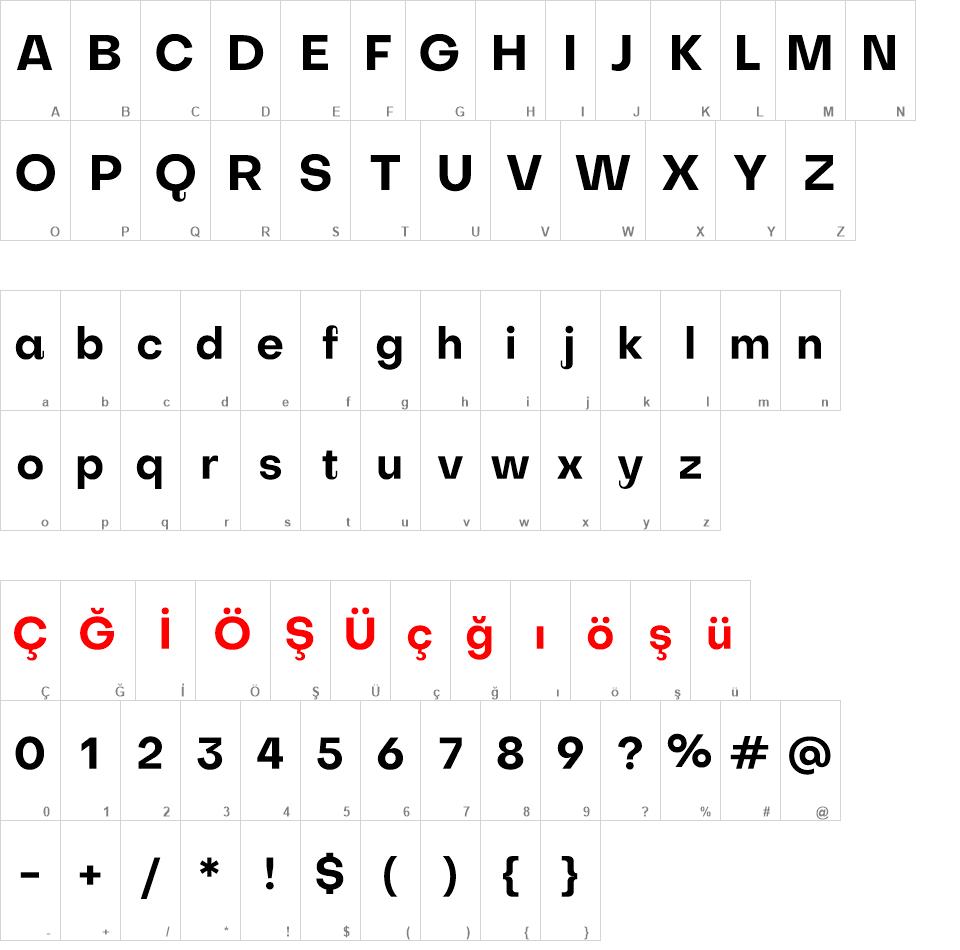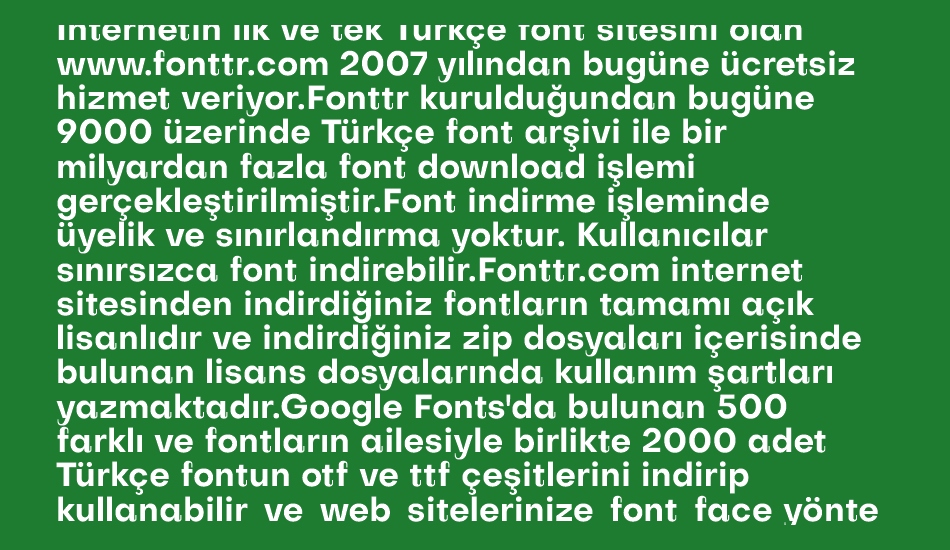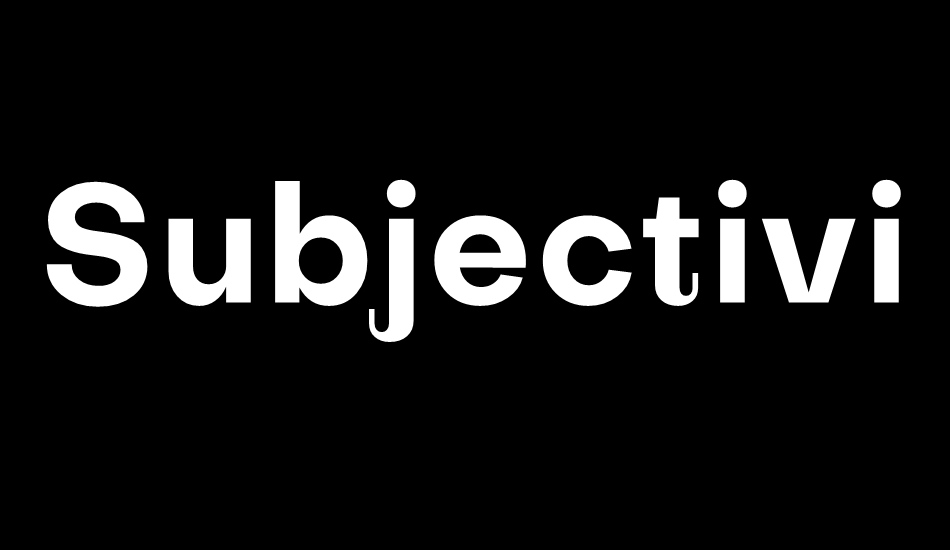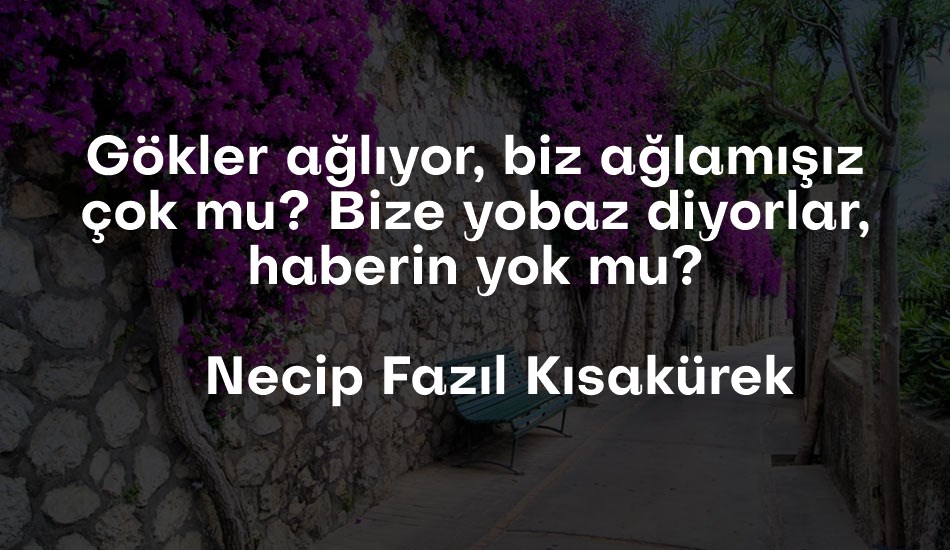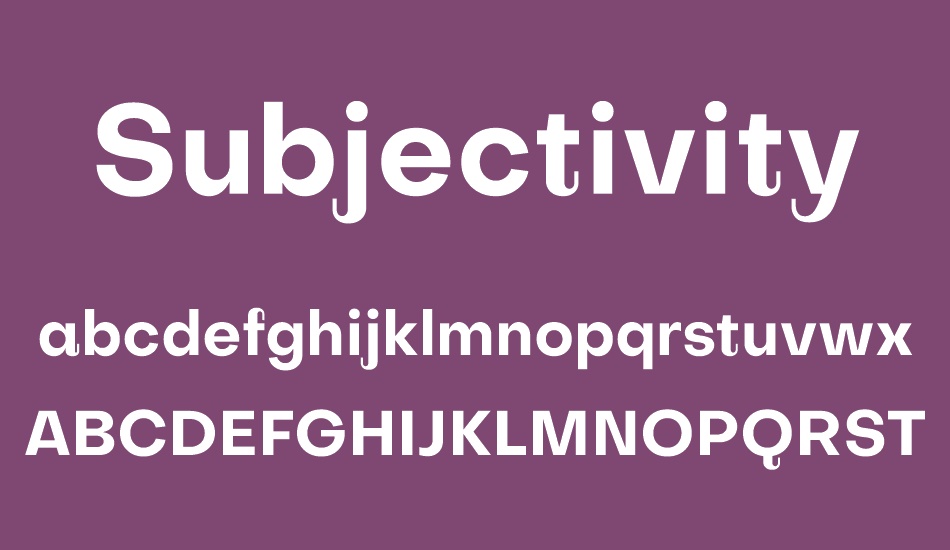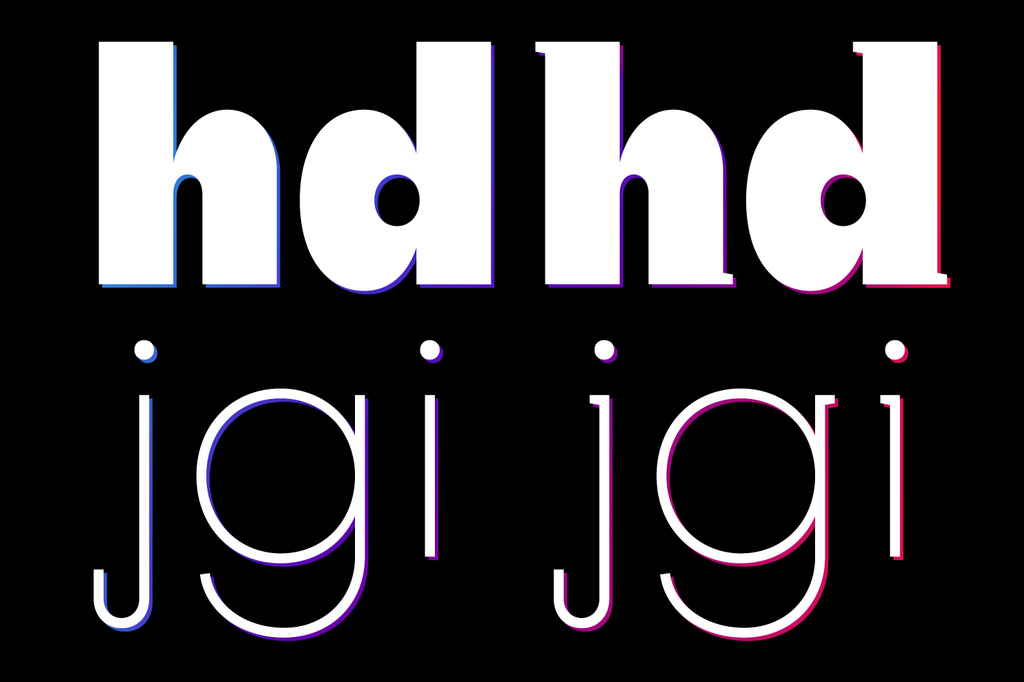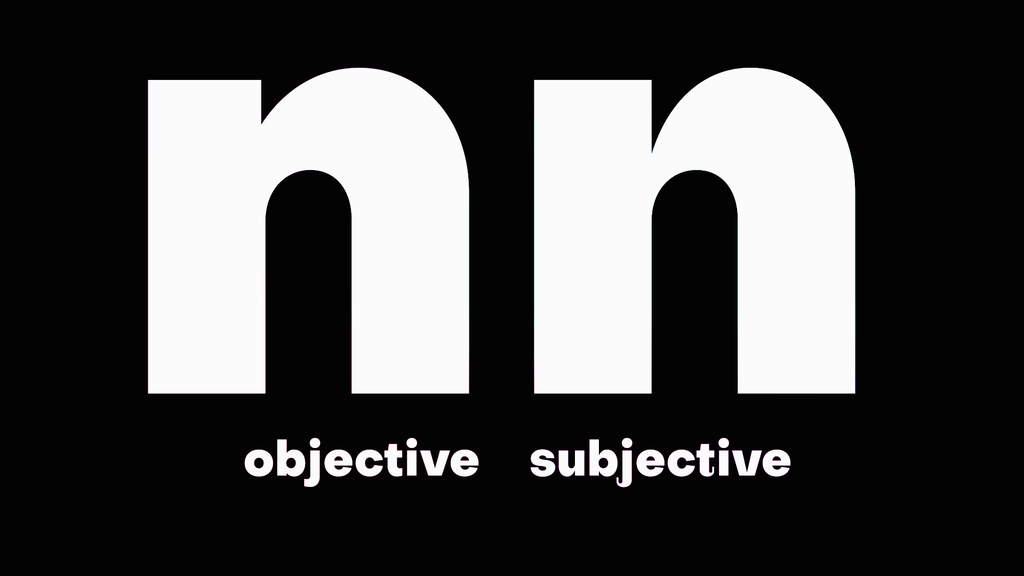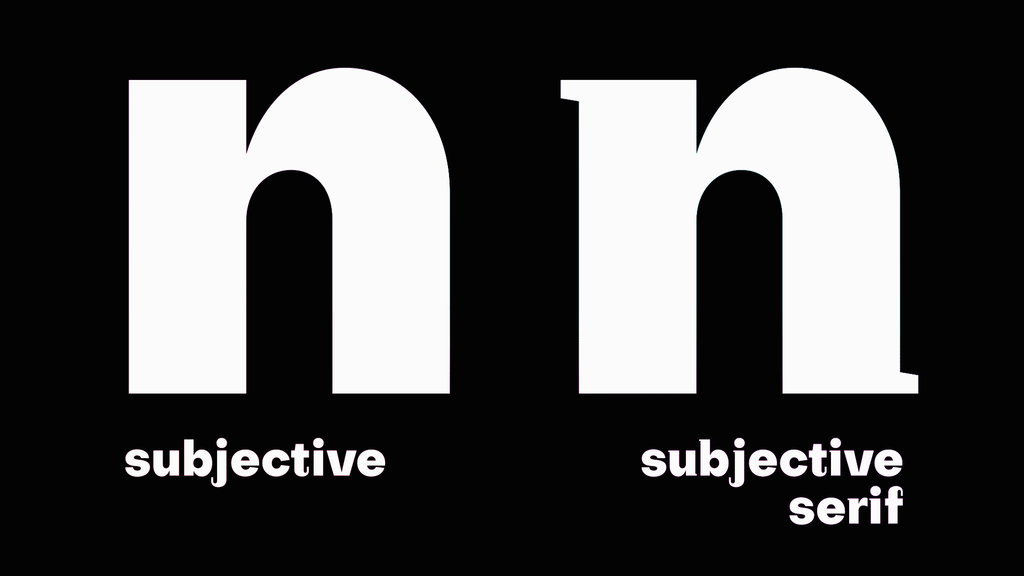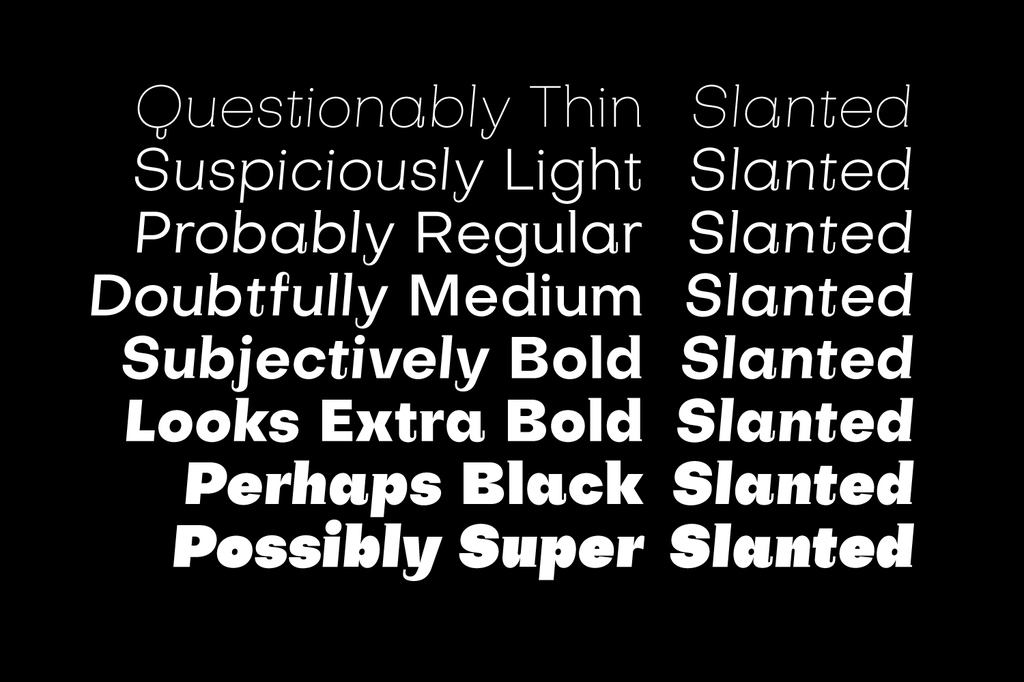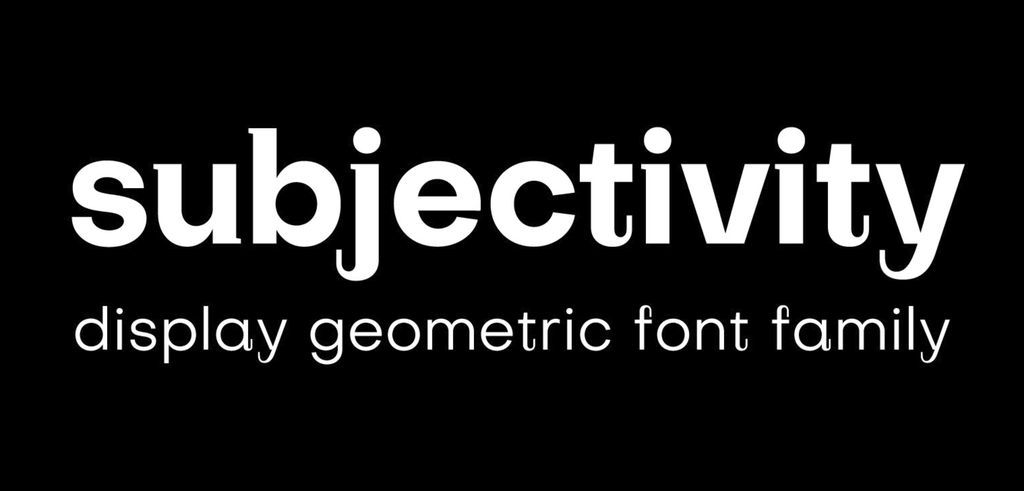
Subjectivity font
Subjectivity
Subjectivity is a display font family, closely related to the Objectivity typeface. It is a strange experimental typeface that has a geometric skeleton and unusual features. These tails in letters like the a, j, y and t might remind you of calligraphy or hand scripts. The contrast is unique – the thin fonts are monolinear, and the bolder it gets, the higher the contrast. Subjectivity also has a brother – Subjectivity Serif. The tiny serifs only appear in lowercase, and their shape and size are exactly the same everywhere – in every letter, in every weight. Subjectivity can work perfectly in pair with it’s “normal” brother Objectivity. The font family comes in 8 weights, 16 styles, 347 glyphs per font.